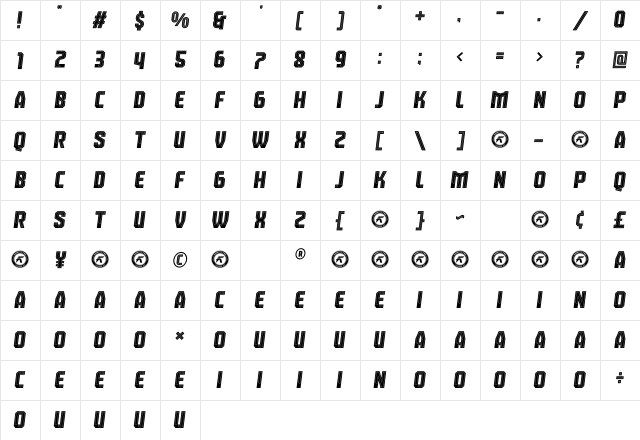
Complete Leverkusen Free Personal Use 4 glyph index. Displaying only characters natively supported by Leverkusen Free Personal Use 4 font.
Leverkusen is a composed and adaptable typeface that performs quietly and consistently across a wide range of design contexts.